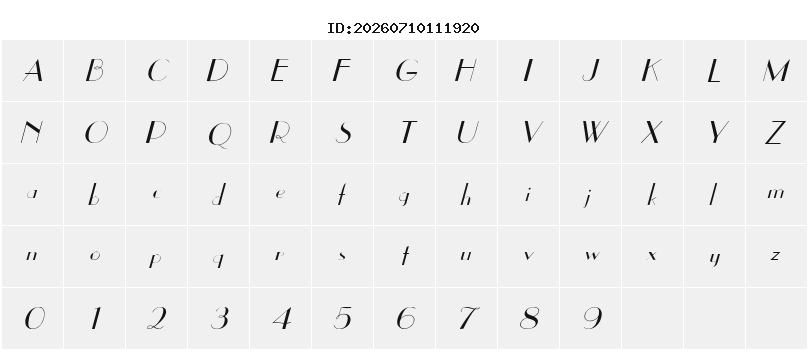
East Side Italic Preview
• Font Name: East Side Italic
• Full Font Name: East Side Italic
About East Side Italic.ttf
East Side Italic.ttf is a modern, elegant sans-serif font designed for ultimate readability and visual harmony. Perfect for branding, headlines, web design, and print materials.